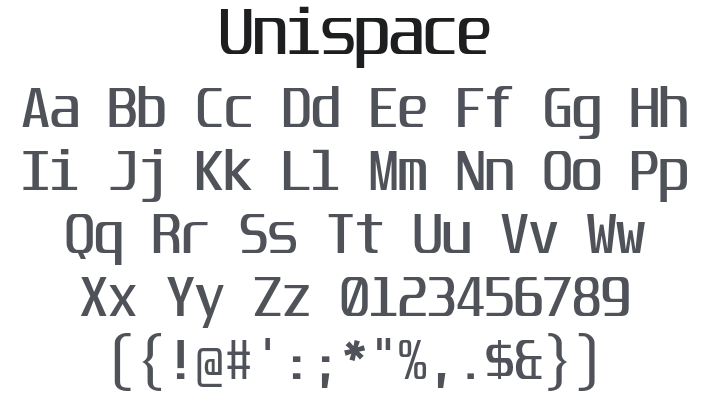
Unispace Font Family
About Unispace
Unispace is a clean, squarish monospaced sans-serif typeface with a high x-height and short ascenders — its fixed-width, industrial character gives it a distinctive technological surety that feels like a programmer's terminal meets PlayStation UI design. Available in Regular, Italic, Bold, and Bold Italic. Perfect for code editors, sci-fi interfaces, game UI design, tech branding, and any project needing reliable, futuristic monospaced personality.